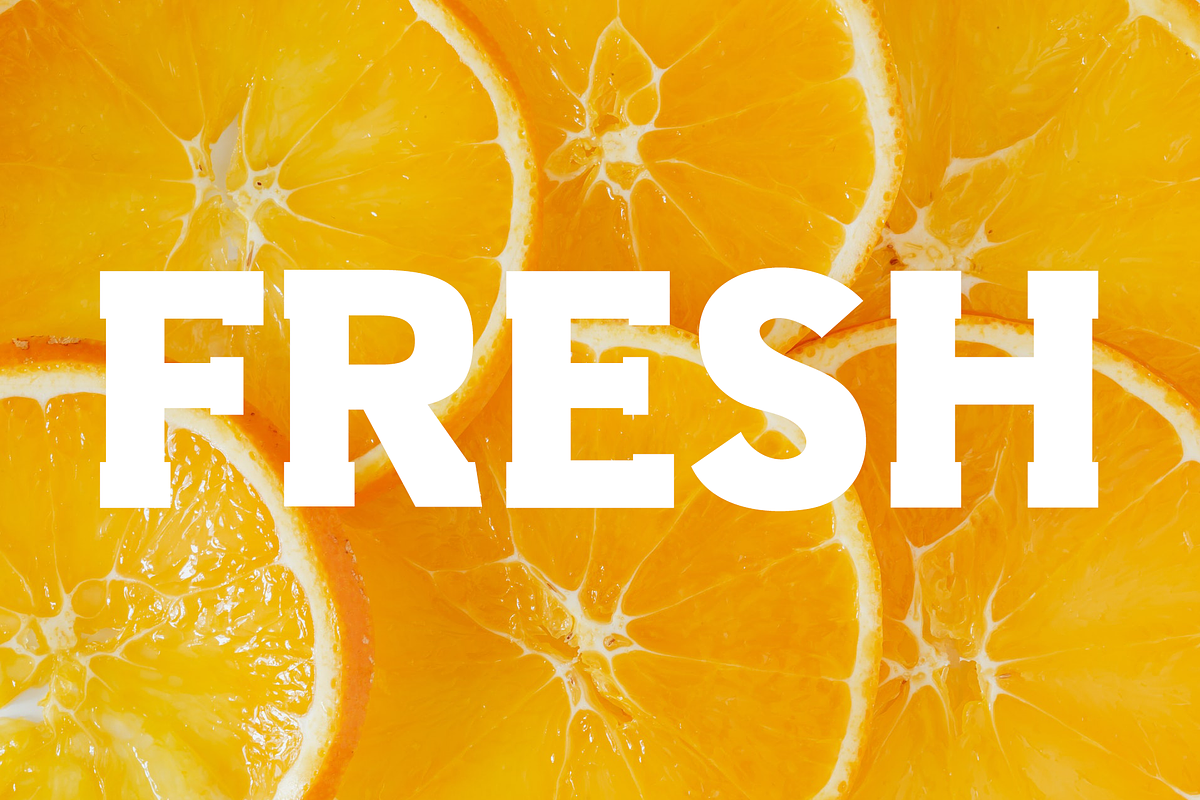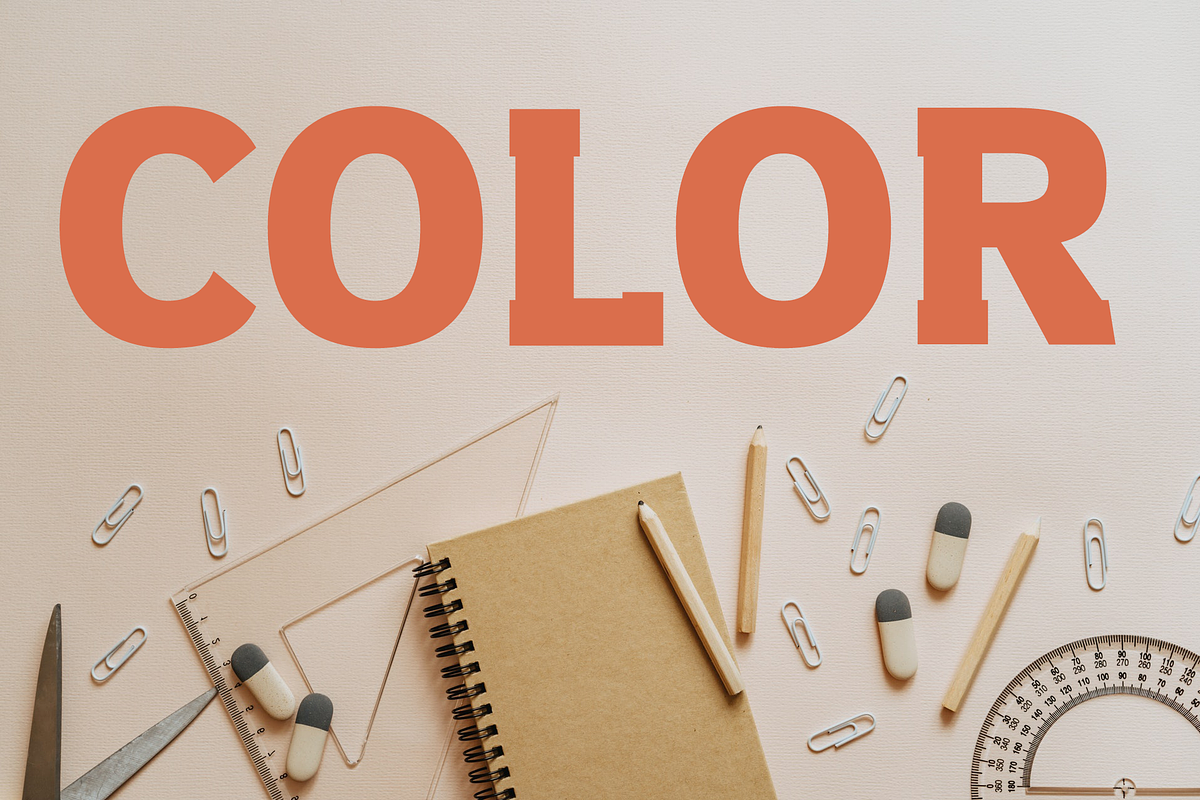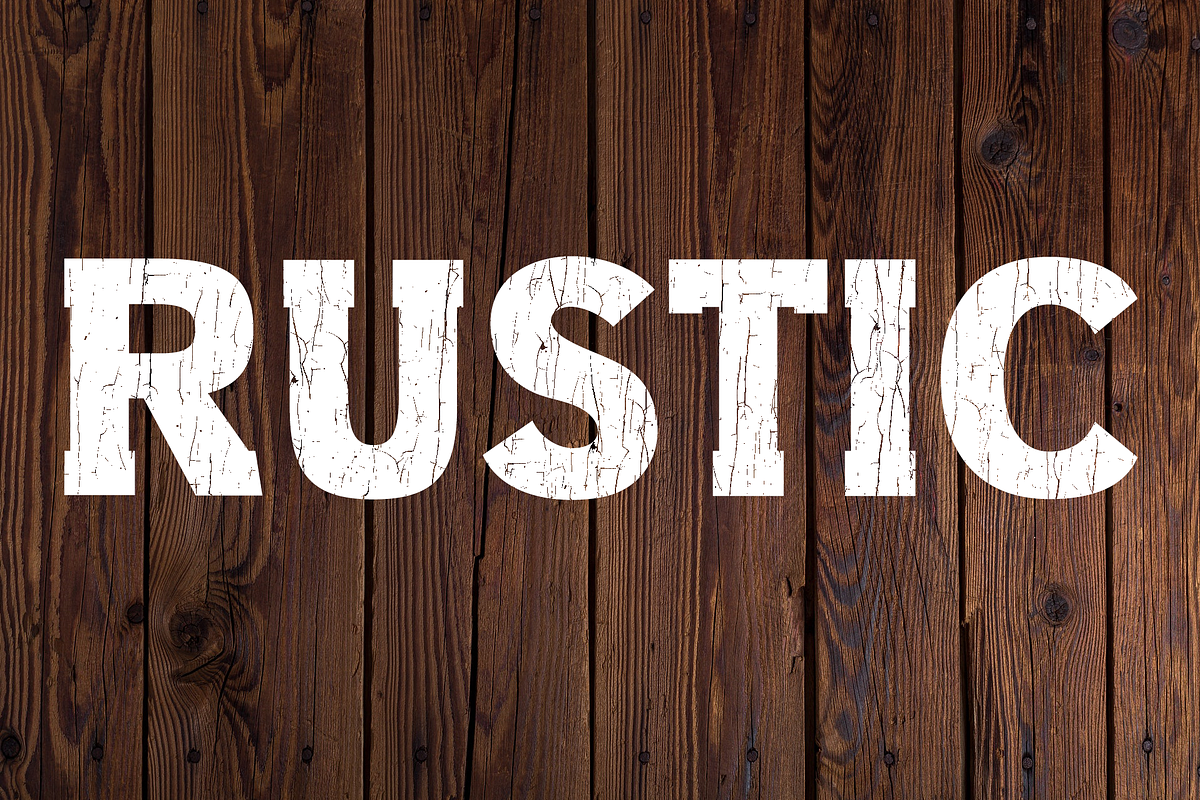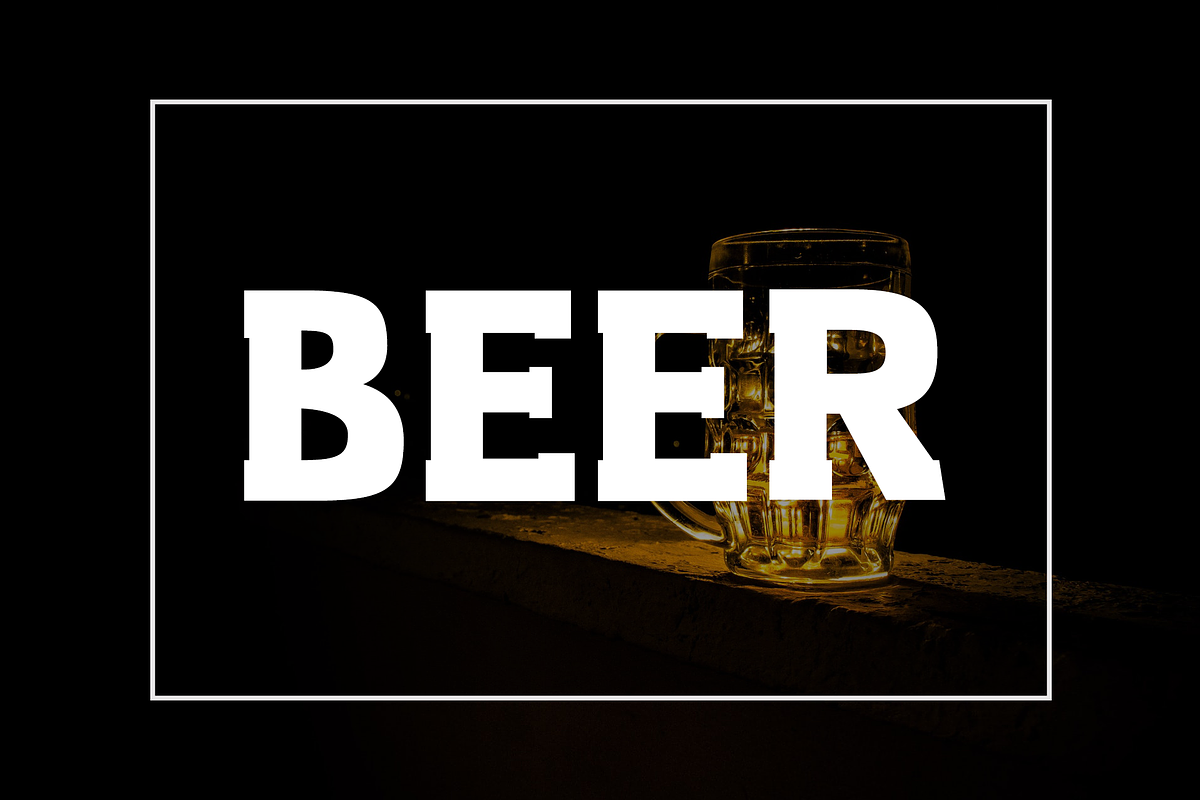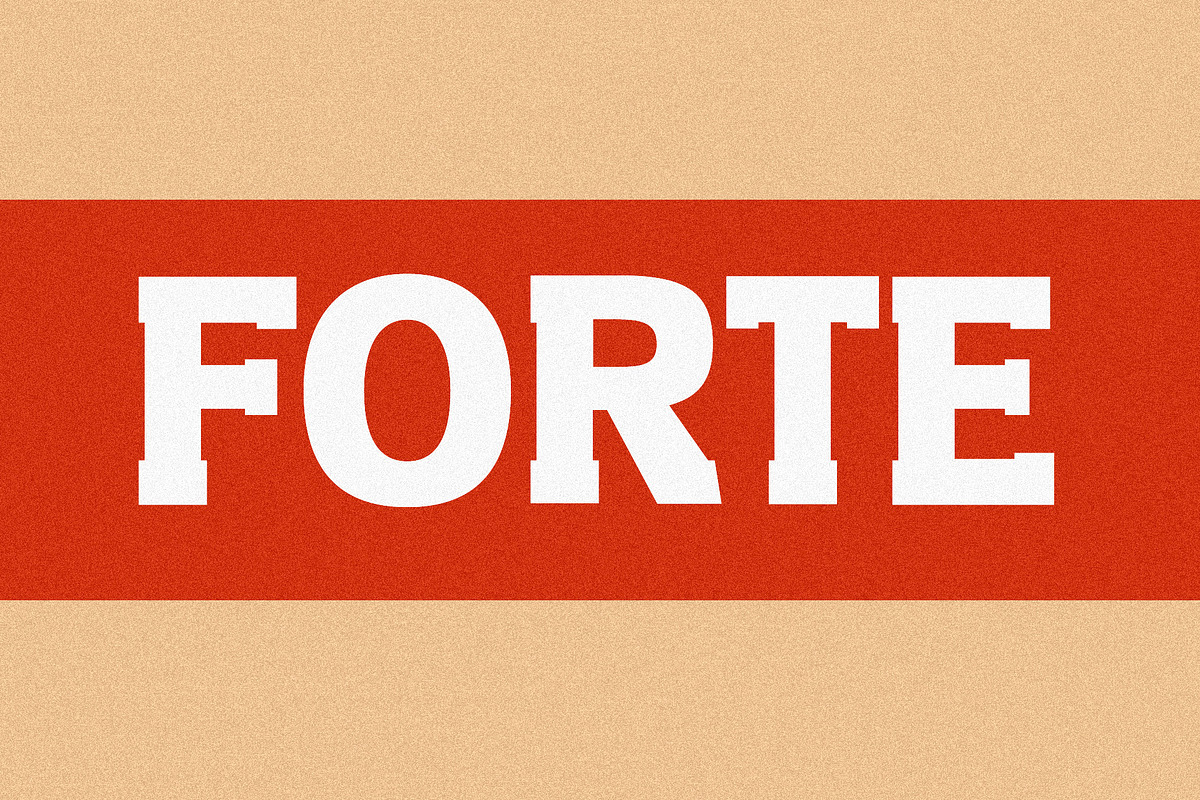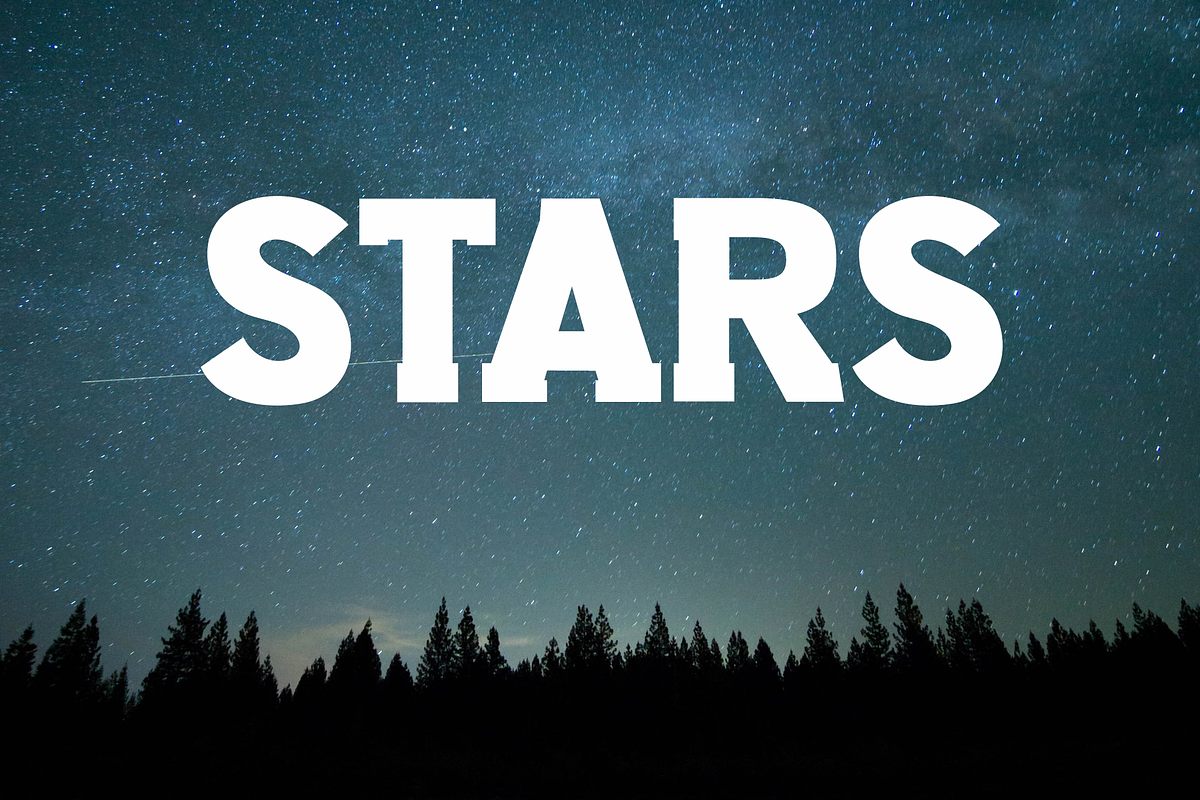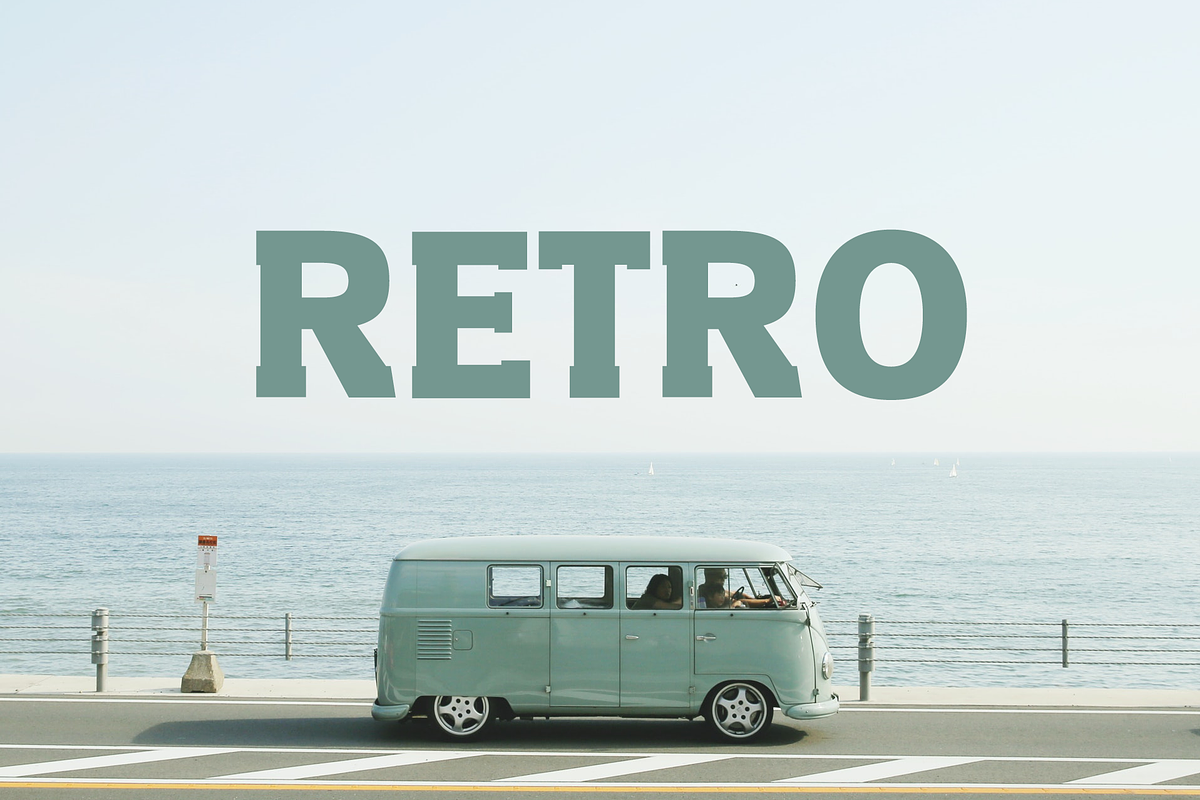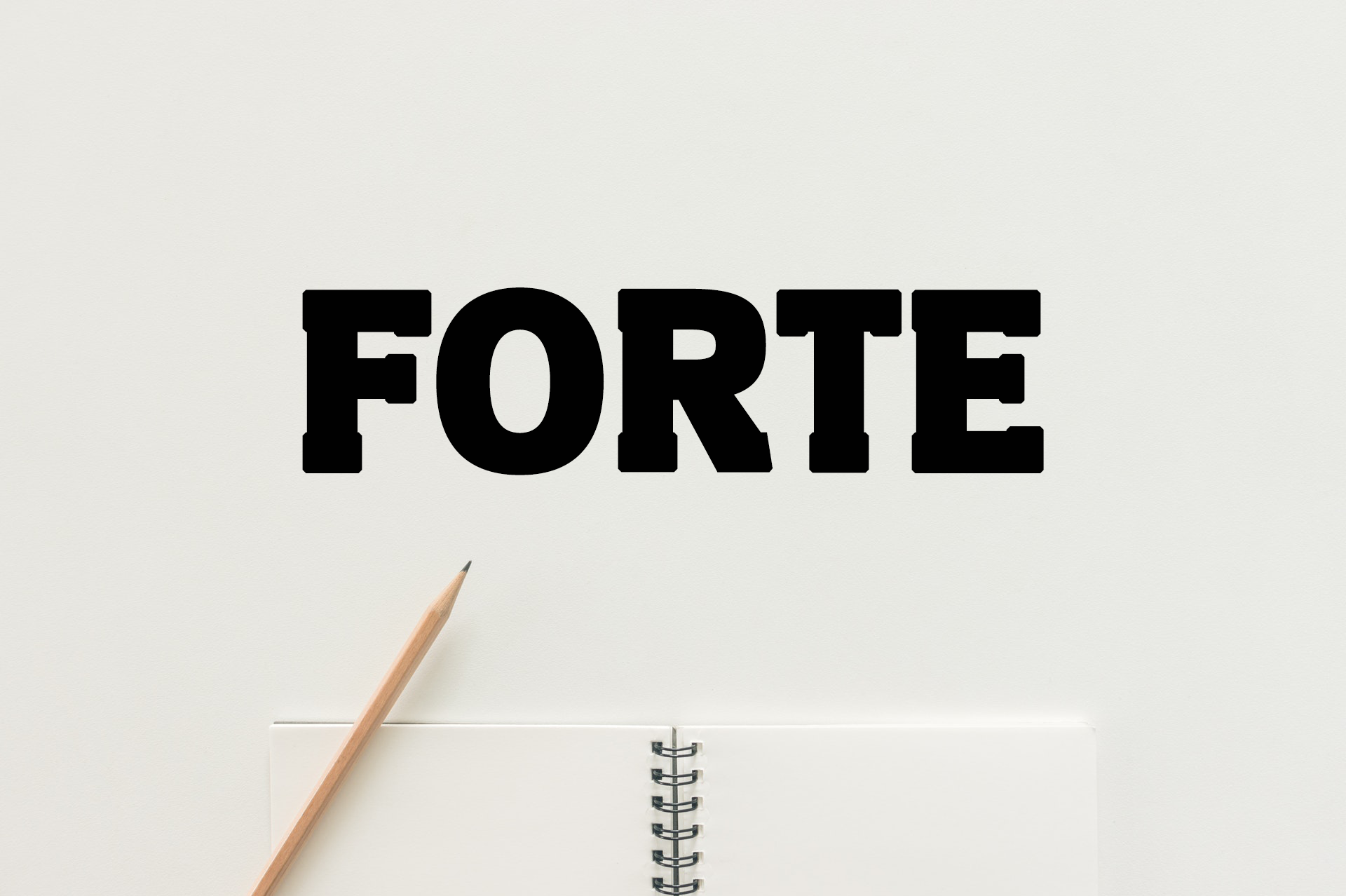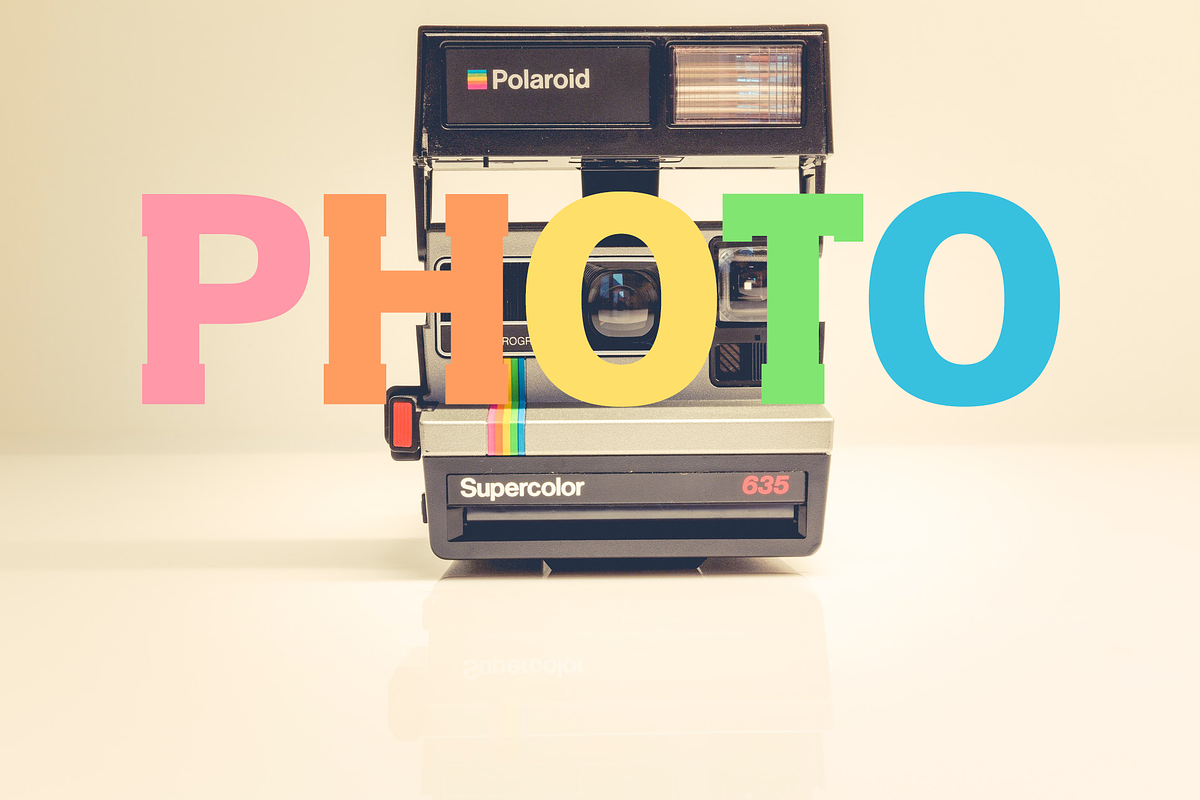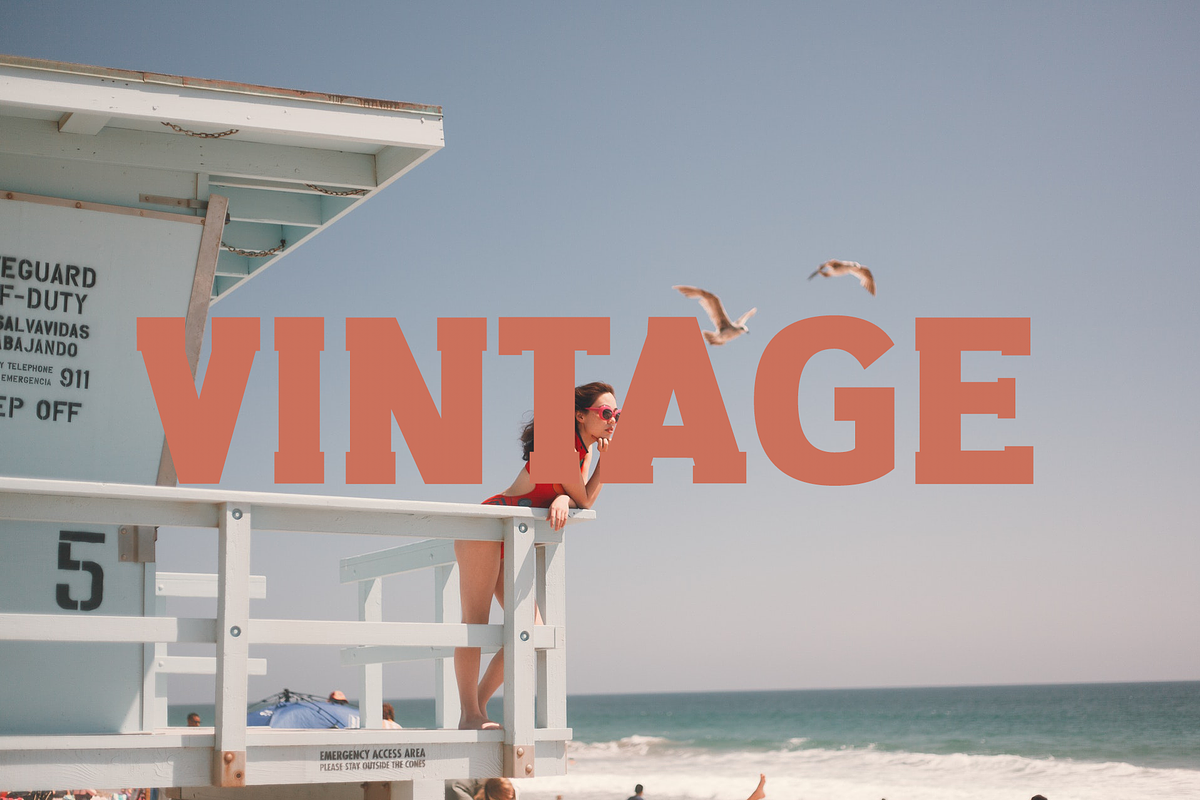
Slab Forte - Vintage Font
Slab Forte retro display slab serif typeface.
Slab Forte is rustic and vintage display font. Bold and thick lettered, this font will make any design idea stand out!
Great for posters, logos, packaging, invitations, website titles, T-Shirts and more.